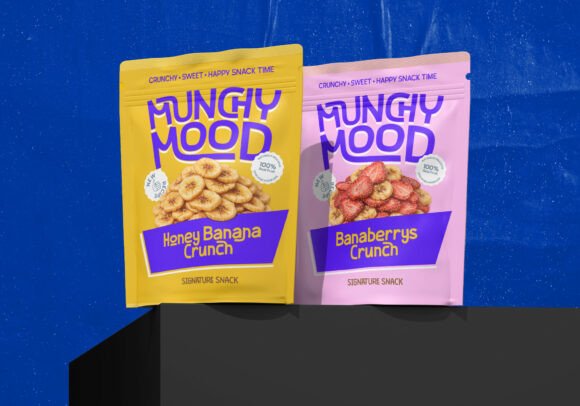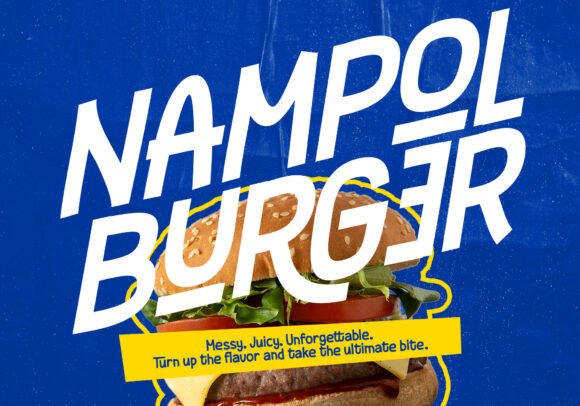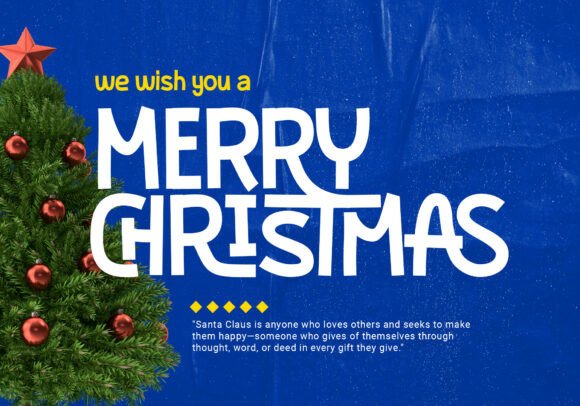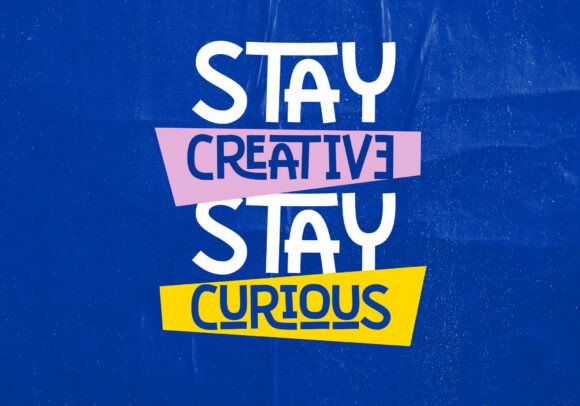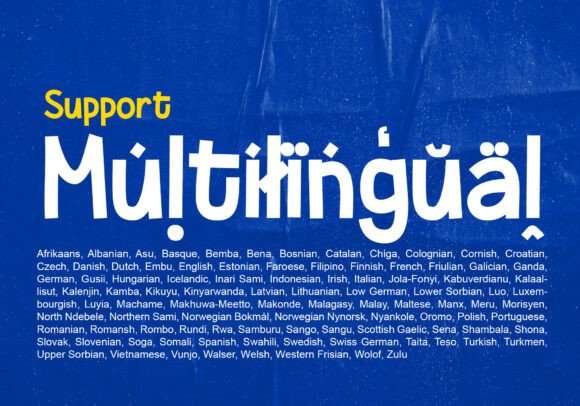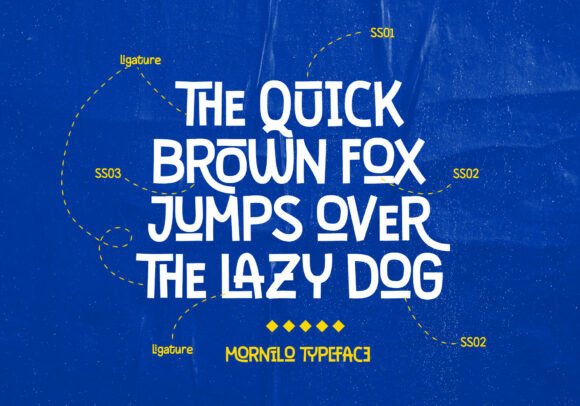
Introduction to Mornilo Font
Have you ever been brainstorming for a creative project, and suddenly a spark of inspiration hits you? Maybe it’s the perfect idea, a catchy phrase, or a whimsical illustration that pops into your mind. For designers, those moments are what drive us to create something truly special. And that’s exactly what the Mornilo Font is designed to help you achieve.
With its playful and charming hand-drawn style, the Mornilo Font is the perfect design resource to add a touch of warmth and personality to your designs. Its high-quality and transparent background make it easy to use in any creative project, whether it’s a social media graphic, a blog post, or even a free download for your audience.
Whether you’re a seasoned designer or just starting out, the Mornilo Font is an invaluable asset to have in your design toolkit. Its flexibility and range of OpenType features make it a breeze to use, and its unique style is sure to make your designs stand out from the crowd.
Key Features of Mornilo Font
- High-quality, professional font design ideal for creative projects.
- Features a transparent background, allowing for easy customization and blending with other design elements.
- Perfect for designers looking for a high-quality, versatile font to elevate their creative projects.
Honest Review: Mornilo Font
I recently stumbled upon the Mornilo Font, and I have to say, it’s a gem in the design world. This free download is perfect for any creative project that requires a high-quality, modern font.
What works well with the Mornilo Font is its sleek and sophisticated design. The font features clean lines, minimalistic shapes, and a transparent background, making it easy to integrate into any design. ✨ It’s also highly versatile, allowing you to use it for a variety of purposes, from logos to digital displays.
- Multiple font styles to choose from
- Works well for digital and print designs
However, there are a few limitations to consider. ⚠️ For one, the font may not be as suitable for traditional or formal designs, as it’s more geared towards modern and creative projects. Additionally, the font may not be compatible with all software or operating systems.
Overall, I’m impressed with the Mornilo Font, and I would definitely recommend it to fellow designers. Its high quality and versatility make it a valuable design resource, and the free download option is a definite plus.
Mornilo Font
Tips for Getting the Most Out of Mornilo Font
To get the most out of the Mornilo Font, be sure to use it with a transparent background to give your designs a clean and modern look.
The Mornilo Font is perfect for a variety of creative projects, including:
- Graphic design projects
- Branding and marketing materials
- Web design projects
- Print design projects
Alternatives to Mornilo Font
The Great Vibes Font is a high-quality, handwritten font ideal for creative projects requiring a personal touch. It features a transparent background, making it suitable for use on any color background. Great Vibes Font is a great alternative to Mornilo Font for designers looking for a more elegant and sophisticated feel.
The Alex Brush Font is a beautiful, cursive script font perfect for design projects that need a touch of elegance. It is available for free download and features a high-quality design. Alex Brush Font is similar to Mornilo Font in its elegant feel but has a more refined and sophisticated look.
The Carolyna Pro Font is a high-quality, modern script font ideal for use in creative projects that require a touch of sophistication. It features a transparent background and is available for free download, making it a great alternative to Mornilo Font for designers on a budget.
Does the Mornilo Font have a transparent background?
No, the Mornilo Font does not have a transparent background. However, the font’s high-quality design and crisp lines make it an excellent choice for designers working with transparent backgrounds or other design elements. If you’re looking for a font with a transparent background, you may want to consider other design resources.